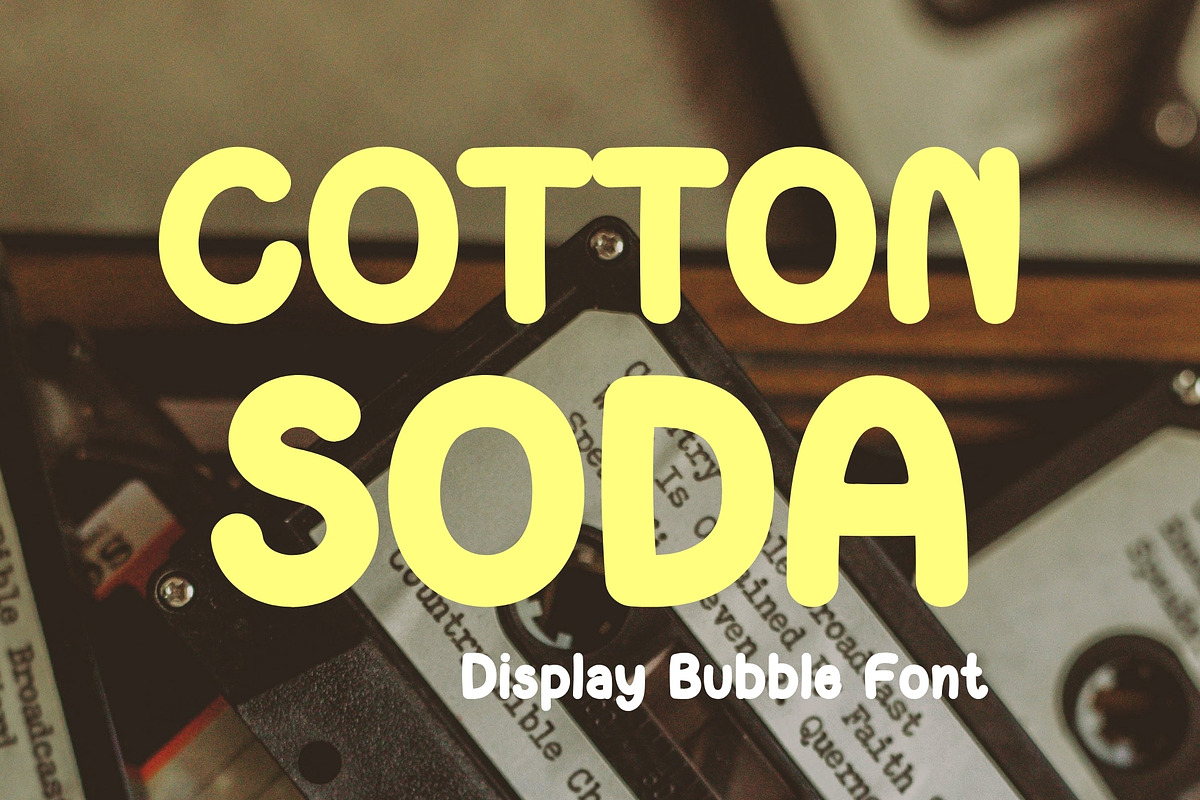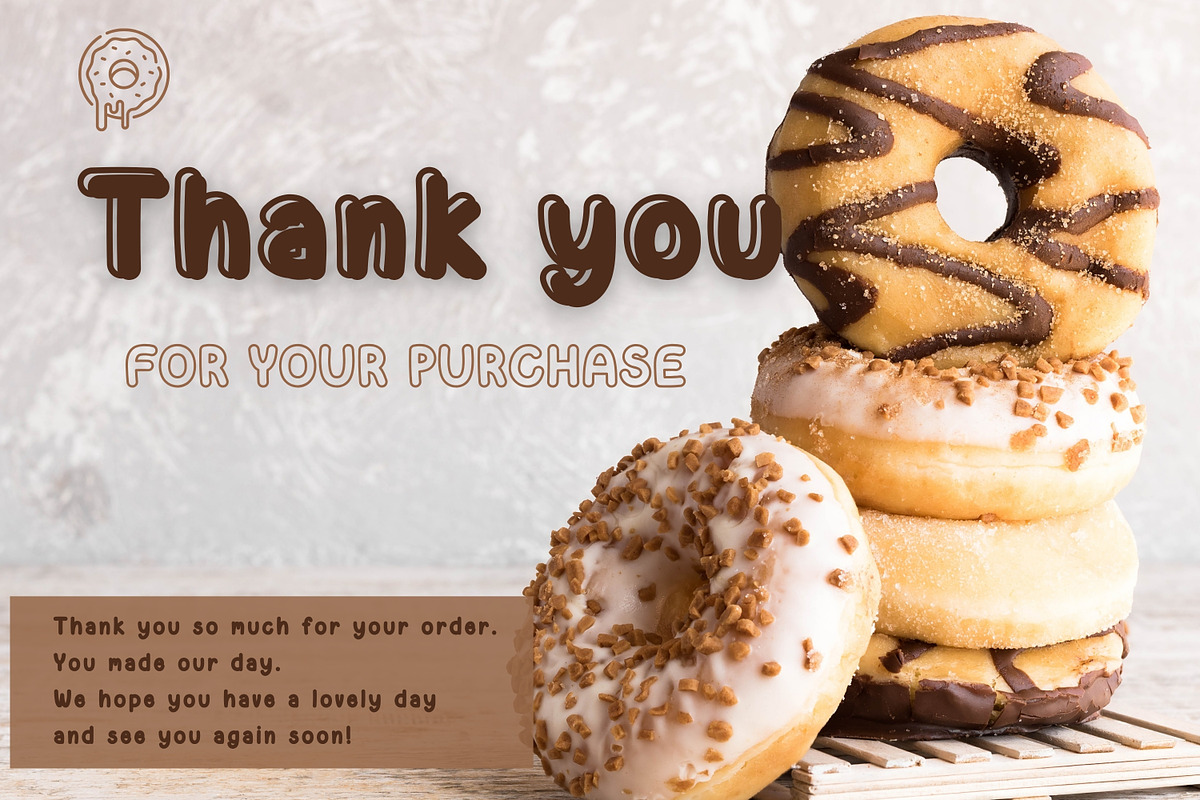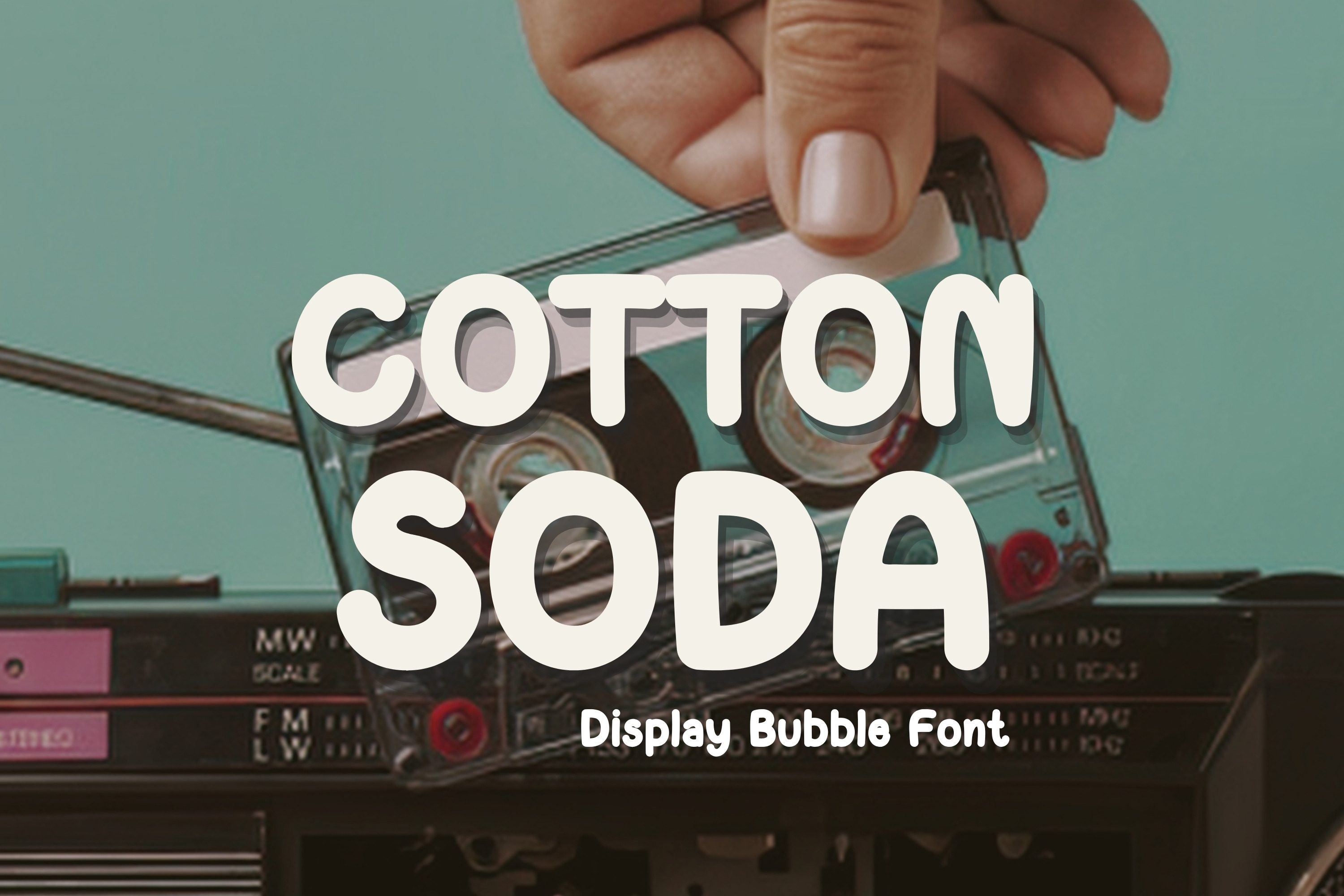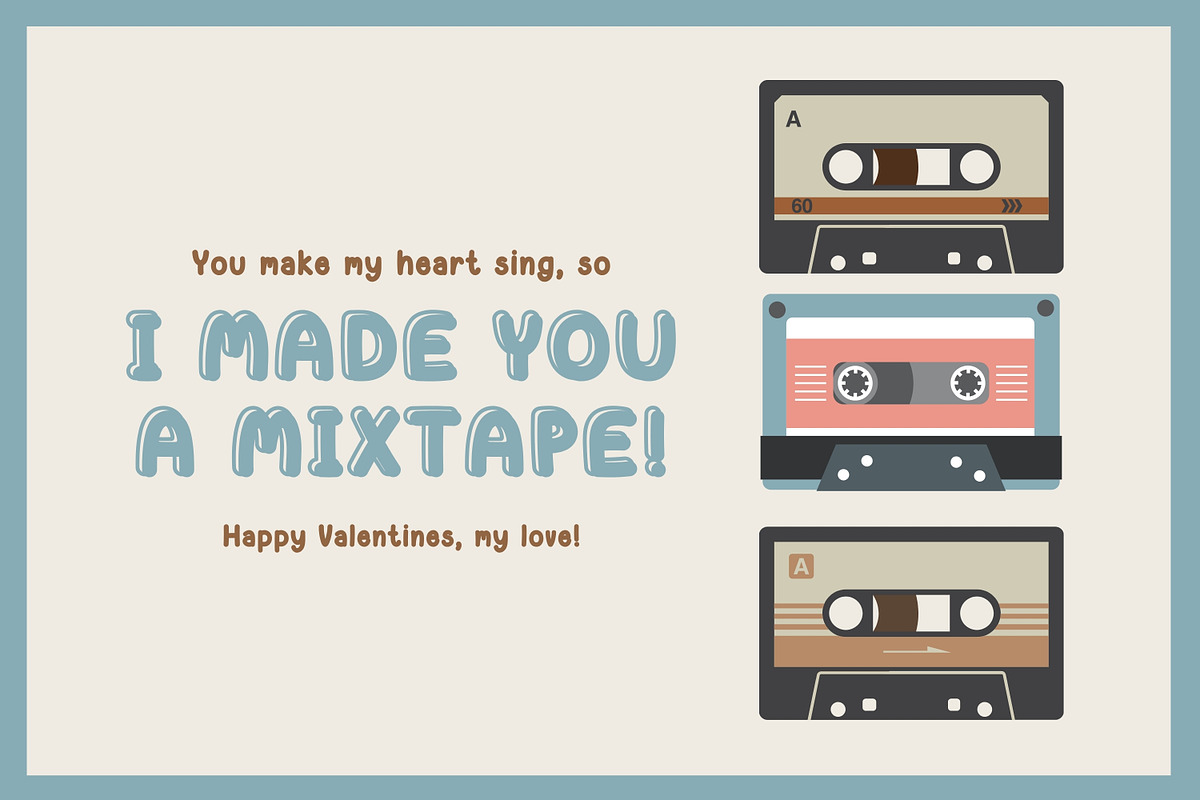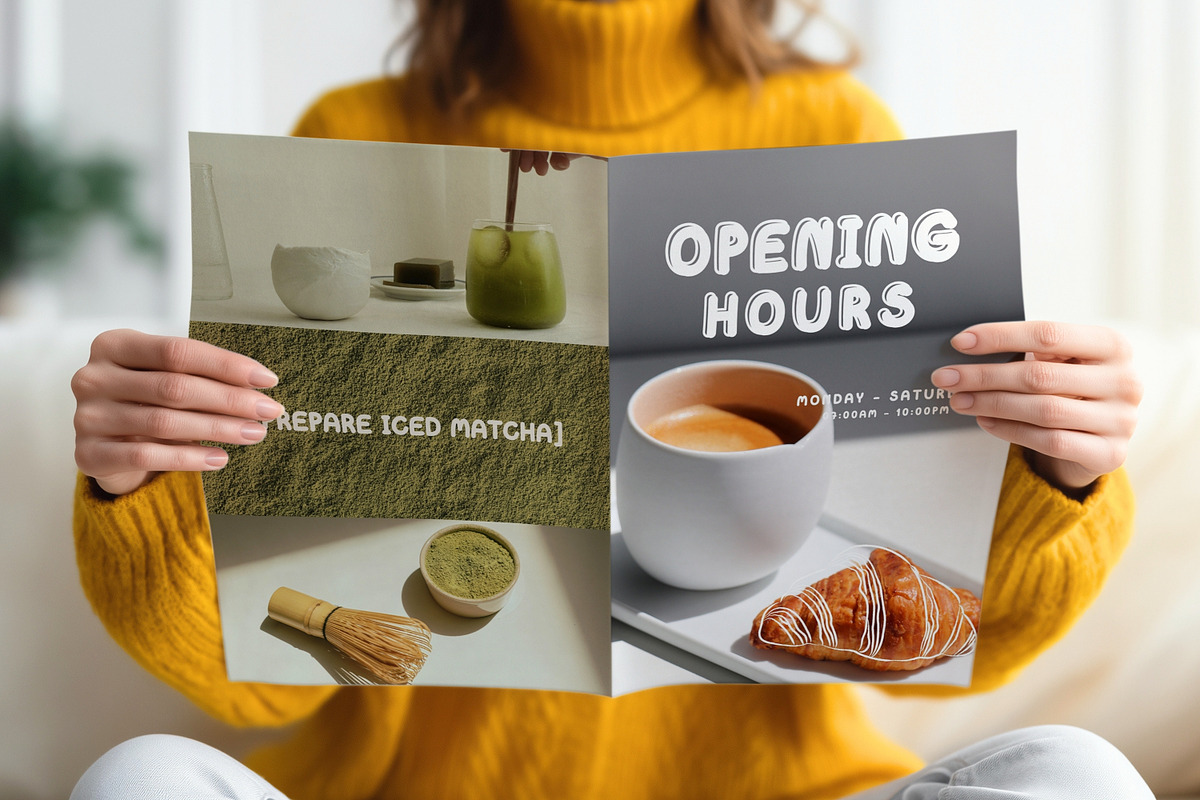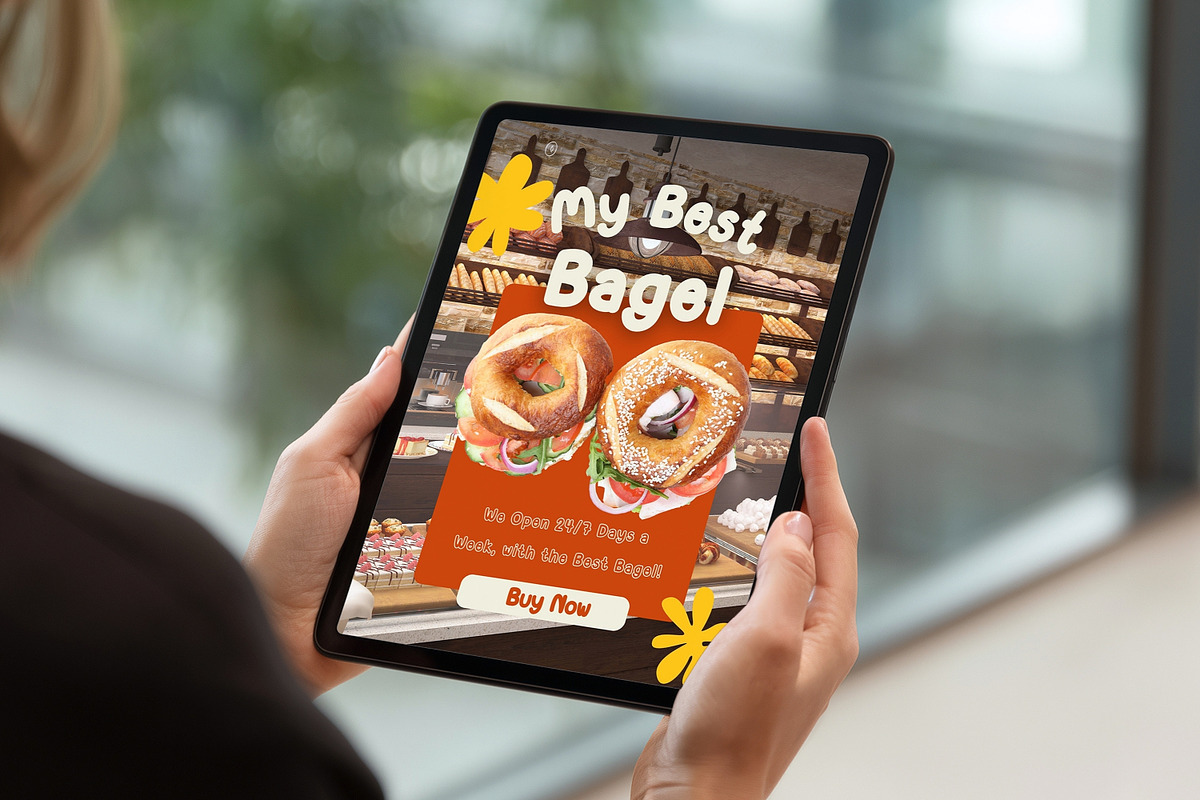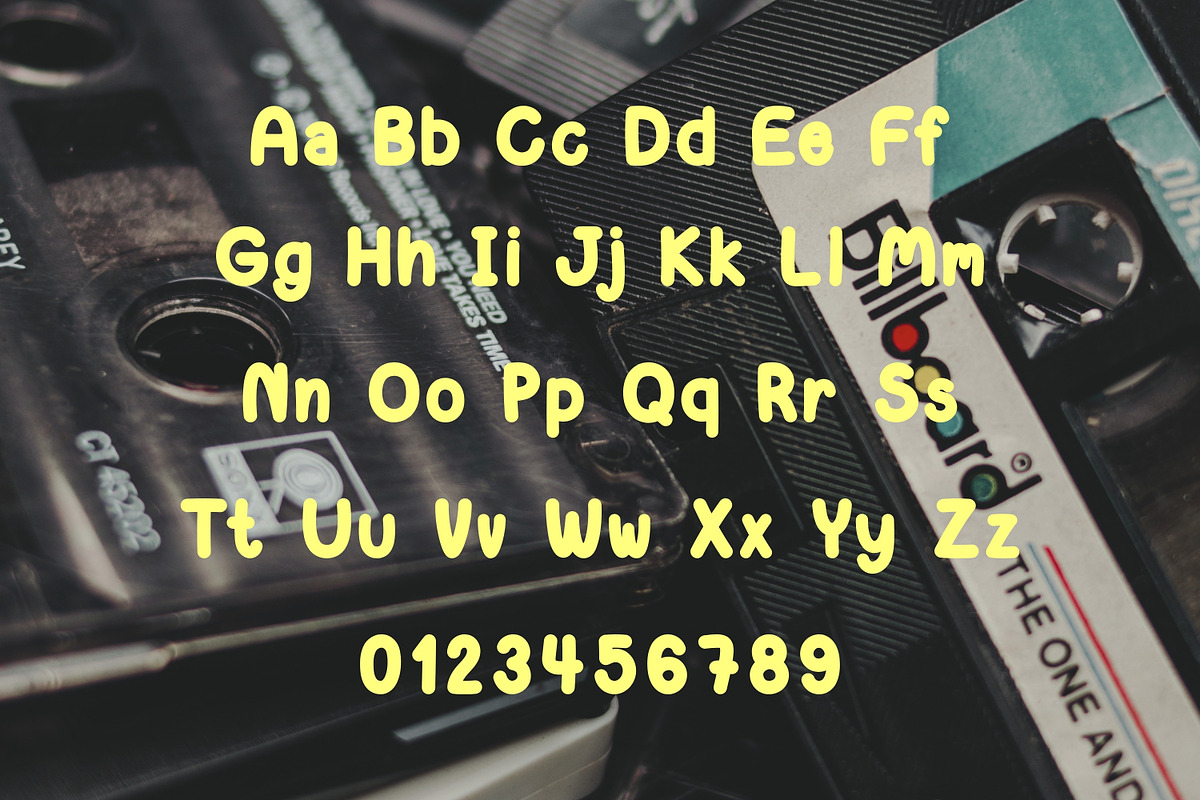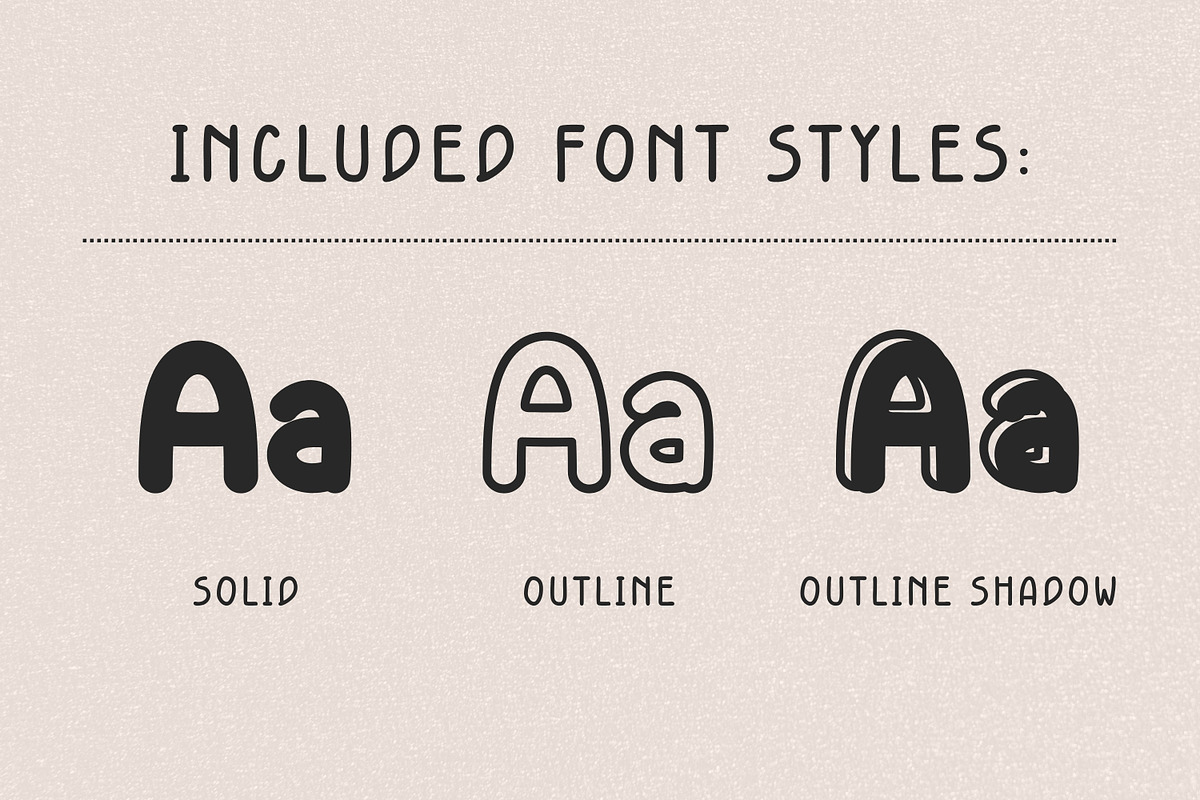
Bubble Display Font-Cotton Soda
✨ Add a playful and cheerful touch to your designs with Cotton Soda Font – a fun, rounded bubble-style typeface perfect for creative projects!
Cotton Soda font, 3 style (solid, outline, outline shadow) : OTF, TTF, WOFF, WOFF2, SVG